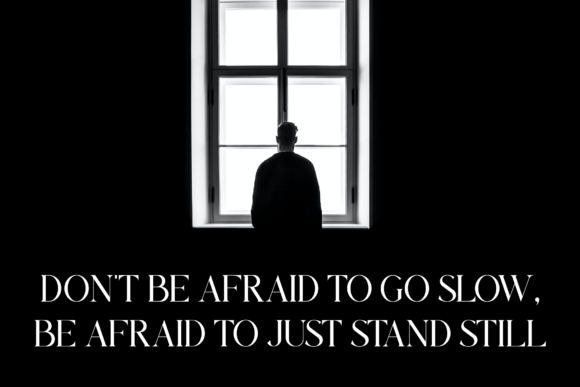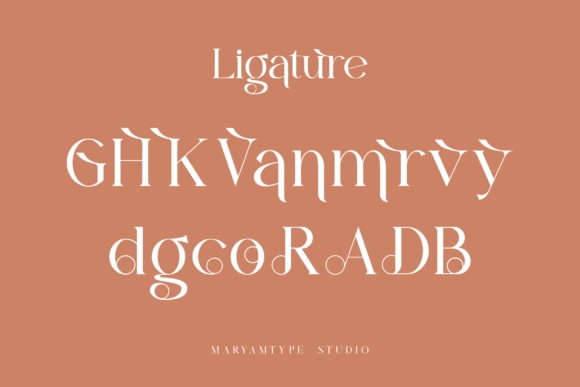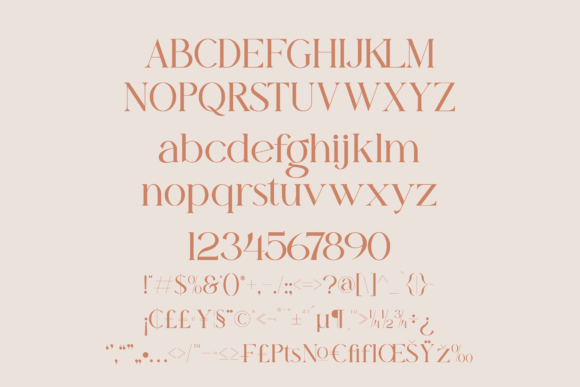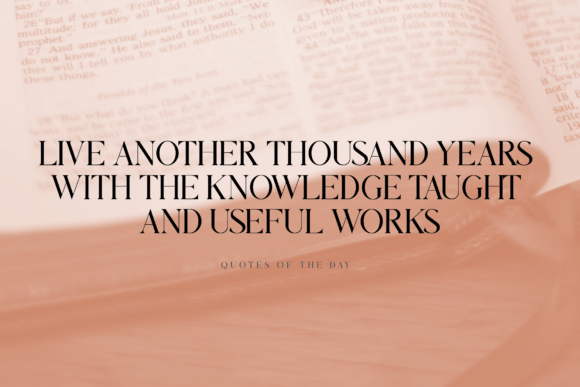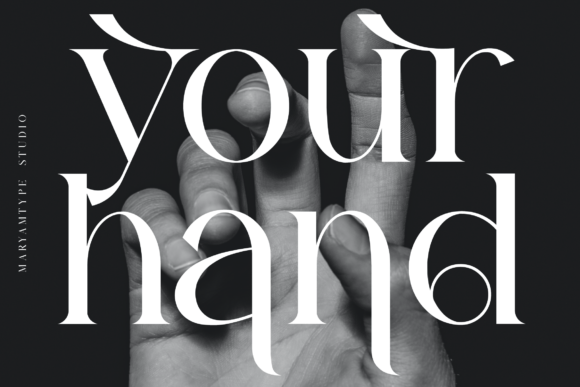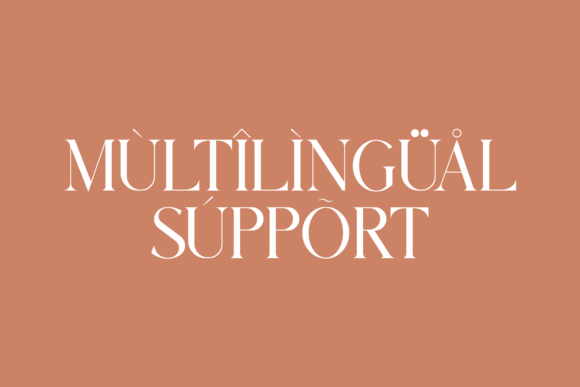
Introduction to Gikany Font
As a designer, have you ever been stuck on finding the perfect font to elevate your creative project? The search can be overwhelming, but sometimes, all it takes is one discovery to transform your design. That’s exactly what happened when I stumbled upon the Gikany Font. Its sophisticated charm and elegant touch instantly caught my attention, and I knew I had to dive deeper.
The Gikany Font is more than just a pretty face; it’s a valuable resource for designers seeking high-quality fonts for their projects. With its PUA encoding, accessing all the glyphs and ligatures is a breeze, making it an ideal choice for creating modern, chic designs. Whether you’re working on a luxury brand or a feminine-themed project, this font is sure to impress.
Key Features of Gikany Font
- Designed with a unique, modern aesthetic, the Gikany Font is perfect for adding a touch of sophistication to your creative project.
Honest Review: Gikany Font
As a designer, I’m always on the lookout for high-quality design resources to elevate my creative projects. Recently, I stumbled upon the Gikany Font, and I’m excited to share my honest review.
- ⚠️ Limited customization options, which may not be ideal for designers who want to further personalize the font.
- ⚠️ Some users may find the font to be too modern or trendy, which may not suit more conservative design projects.
Overall, I’m impressed with the Gikany Font. It’s a solid addition to any designer’s toolkit, and I appreciate the transparent background option, which sets it apart from other fonts. If you’re looking for a high-quality font for your creative project, I’d definitely recommend giving it a try.